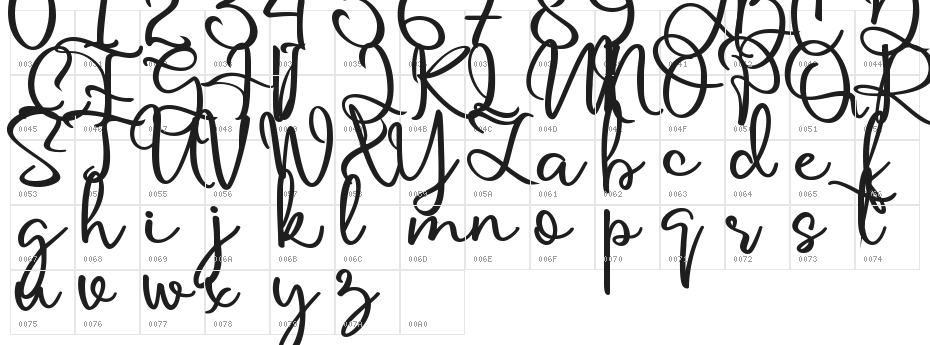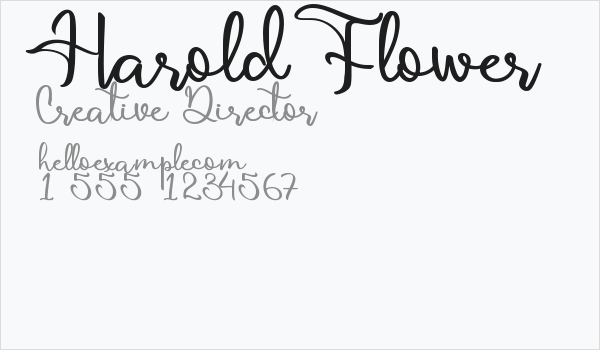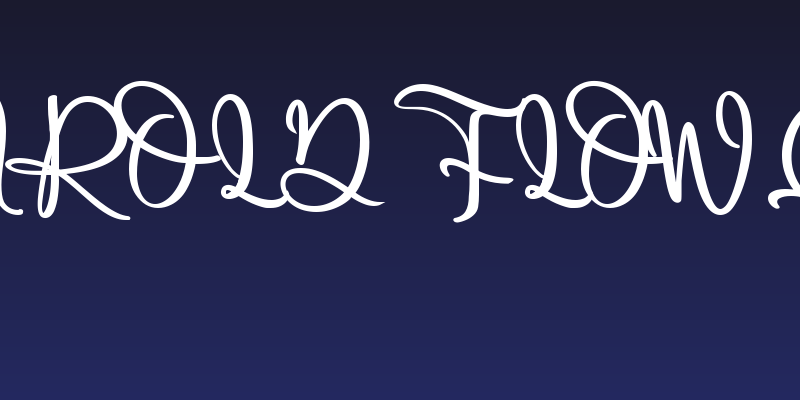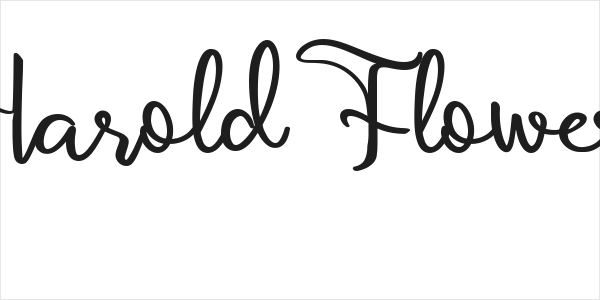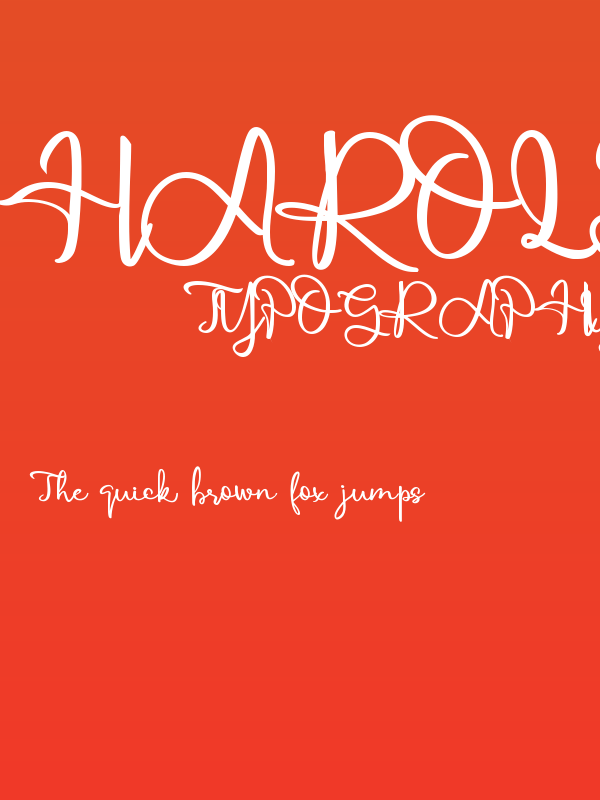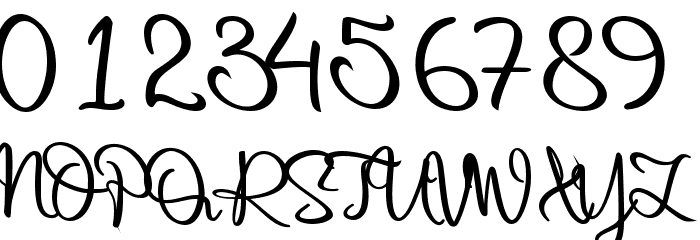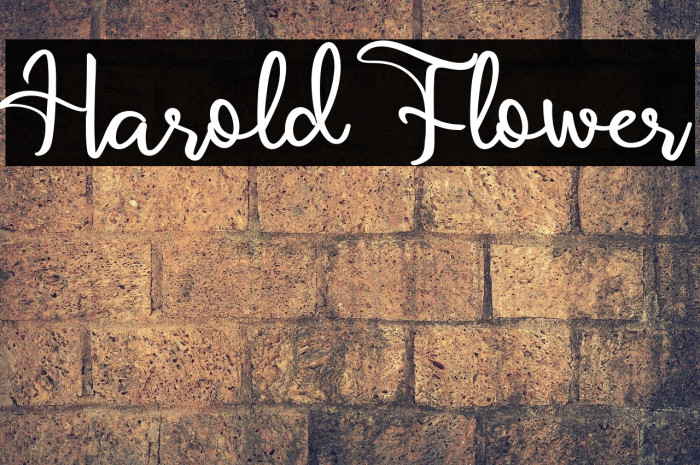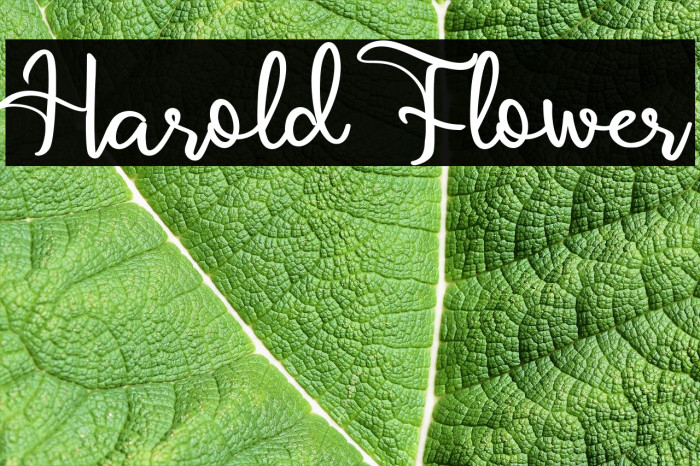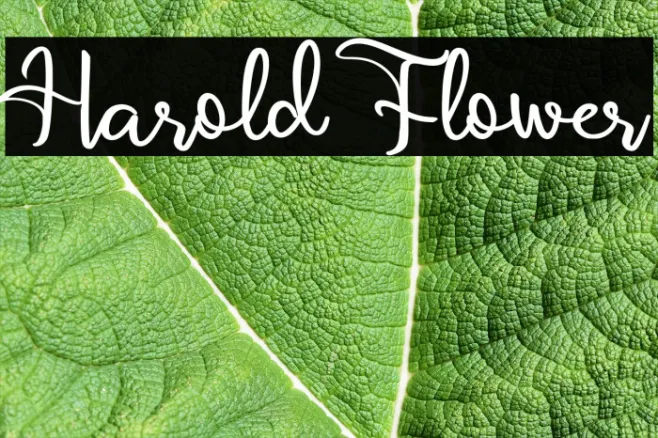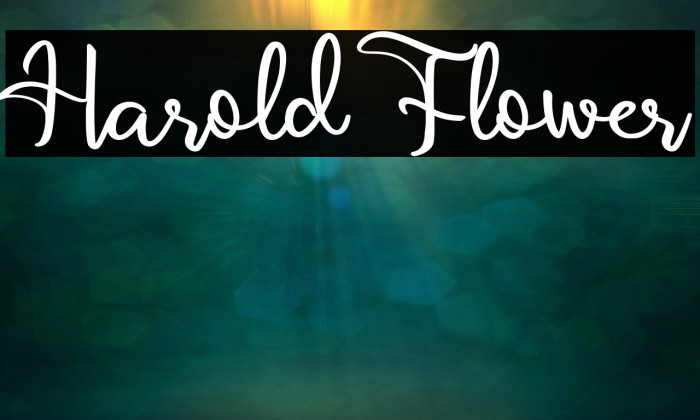
Harold Flower Font
Harold Flower Description
This font features an elegant, flowing script style with a handwritten appearance. The letters are interconnected, creating a seamless and fluid look. The uppercase characters are bold and ornate, with intricate loops and swirls that add a decorative flair. The lowercase letters maintain a consistent style, with smooth curves and a natural, cursive flow. The numerals are distinct and easy to read, while still maintaining the overall script aesthetic. Special characters are integrated seamlessly, matching the ornate and decorative style of the alphabet. This font exudes a sense of sophistication and creativity, making it ideal for artistic and expressive designs.
| Proposed Projects | Ideal for wedding invitations, greeting cards, branding, and artistic projects that require a personal touch. |